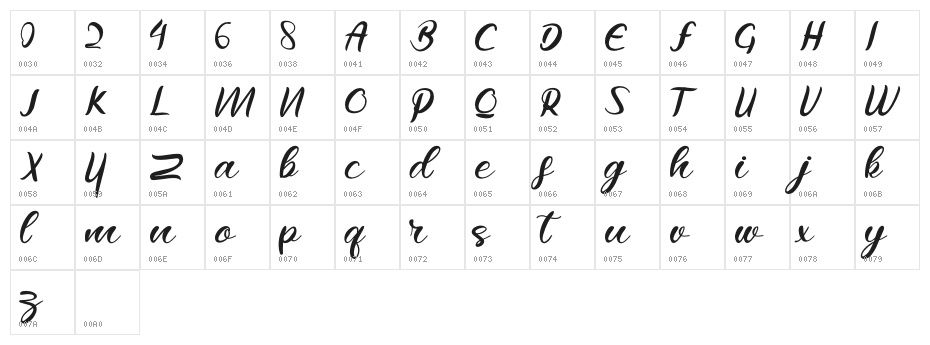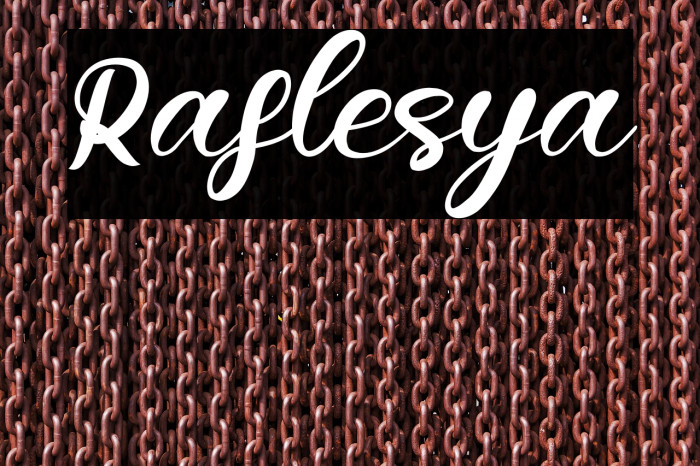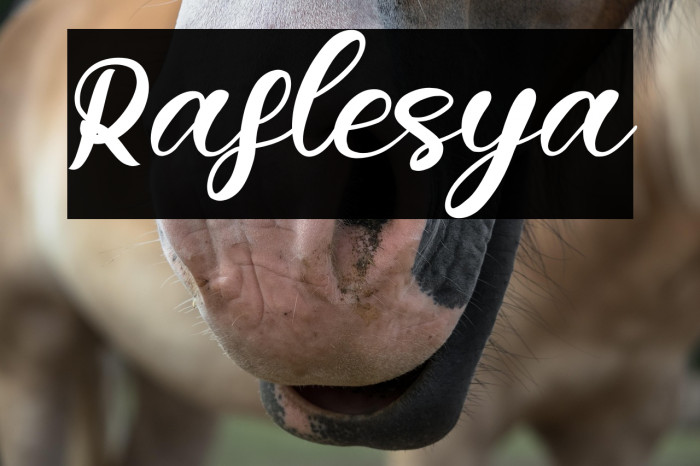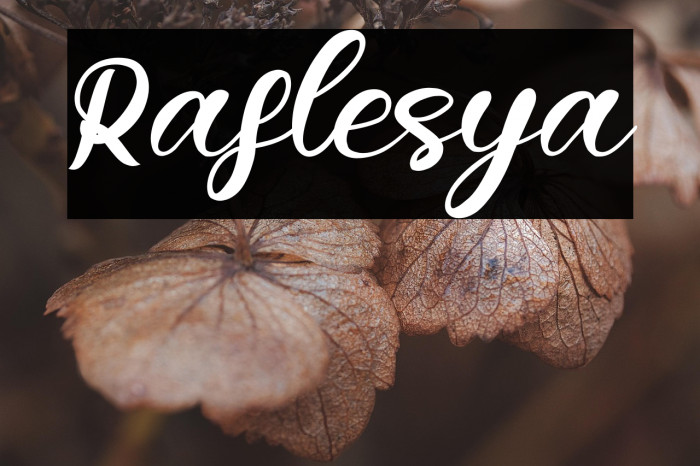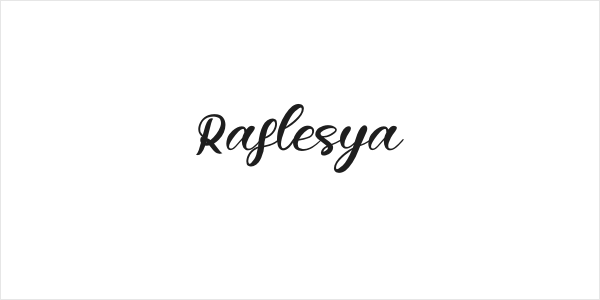
Raflesya Font
Raflesya Description
This font features a dynamic and flowing script style, characterized by its elegant and cursive letterforms. The uppercase letters exhibit a graceful, sweeping motion with a slight slant, while the lowercase letters maintain a consistent fluidity and connectedness. The numerals are designed with a similar flair, incorporating smooth curves and a sense of movement. The overall appearance is sophisticated and artistic, making it suitable for projects that require a touch of elegance and creativity. The font's design is both modern and timeless, offering versatility for various applications.
| Overall Style | Elegant, Artistic |
| Proposed Projects | Ideal for wedding invitations, greeting cards, branding, and elegant logo designs. |